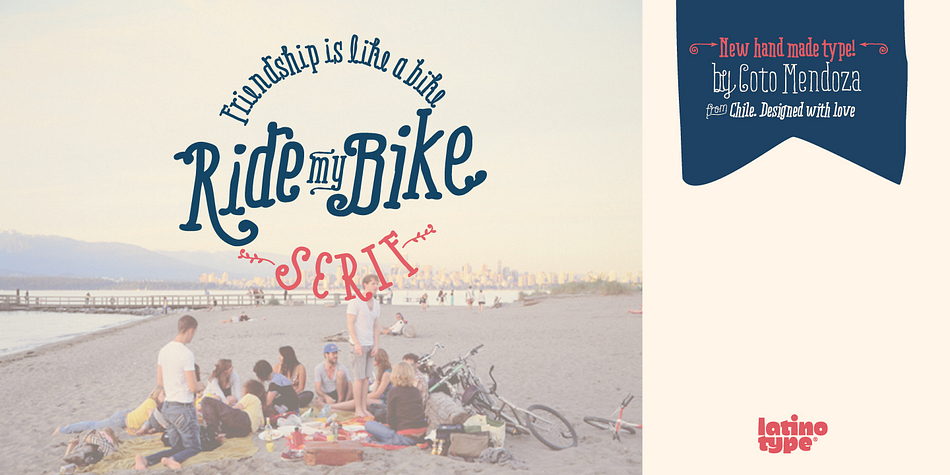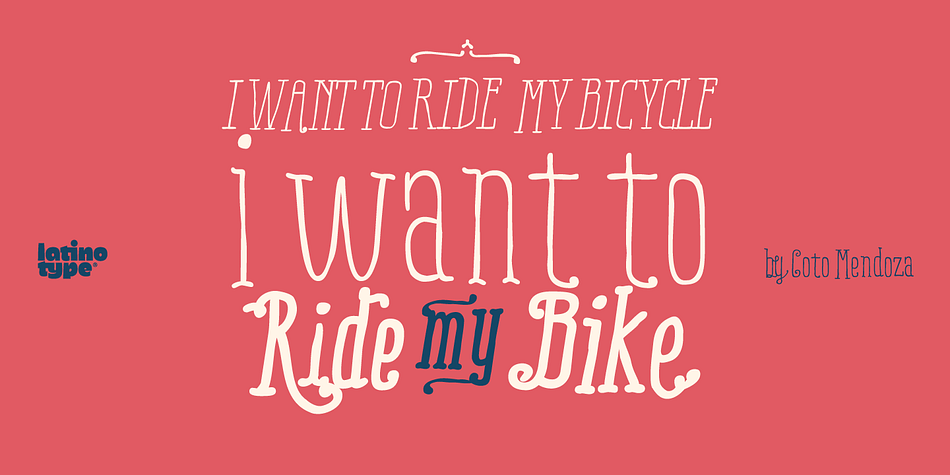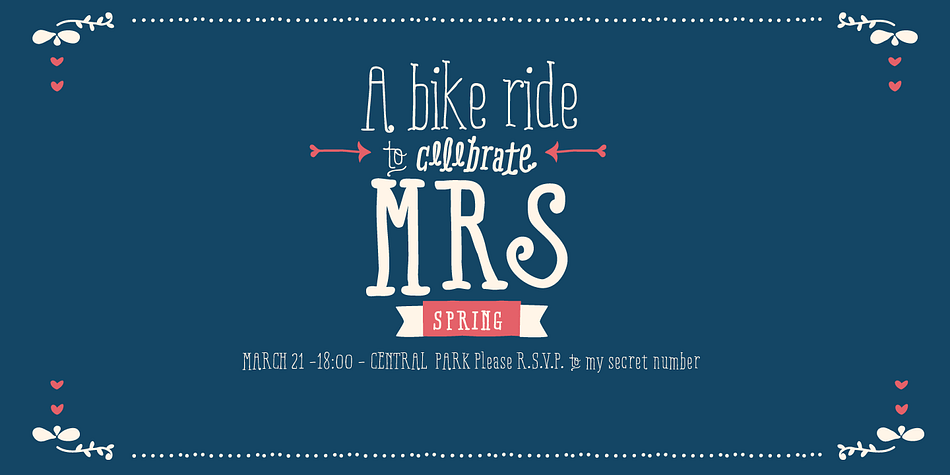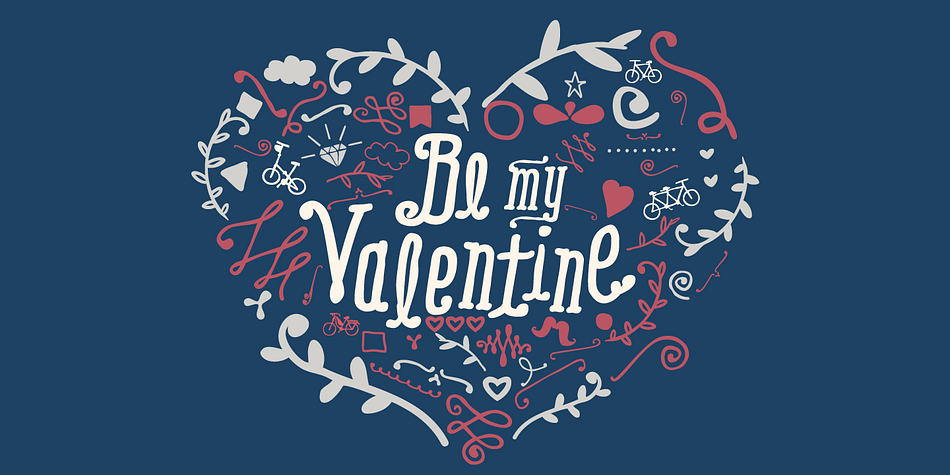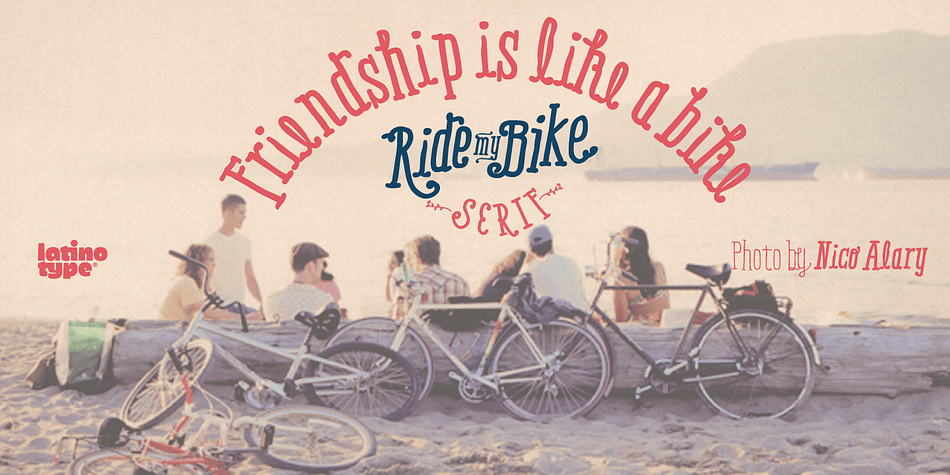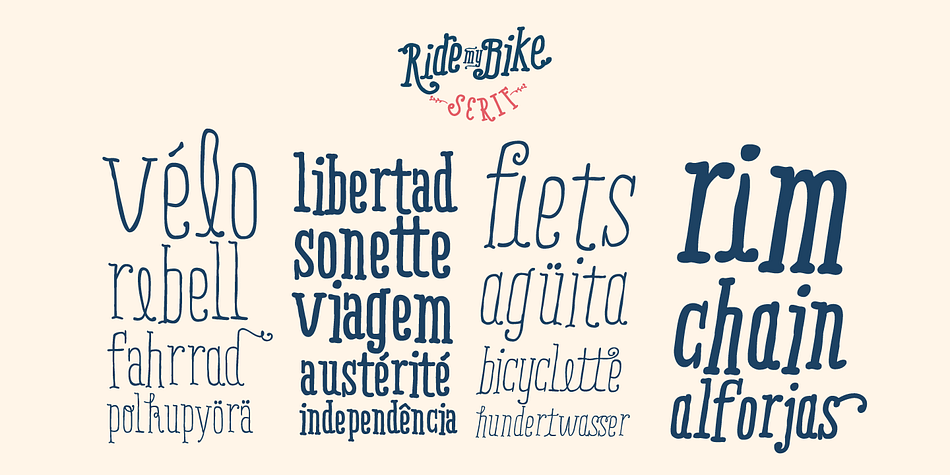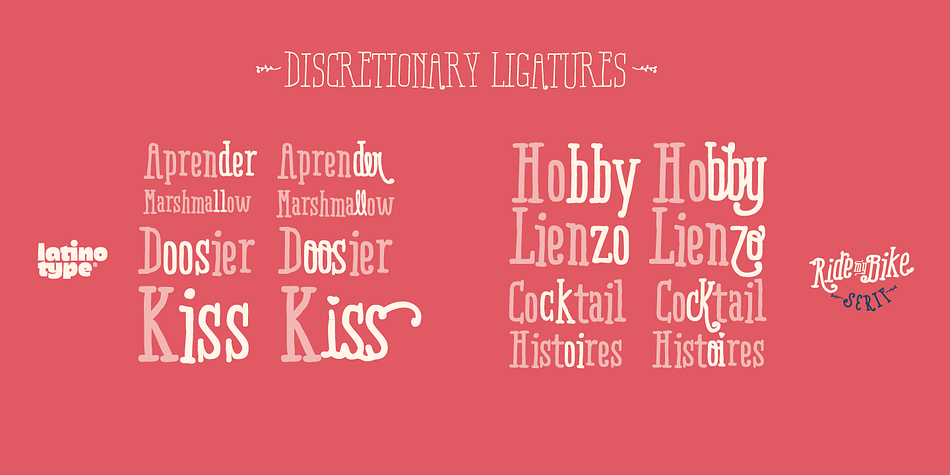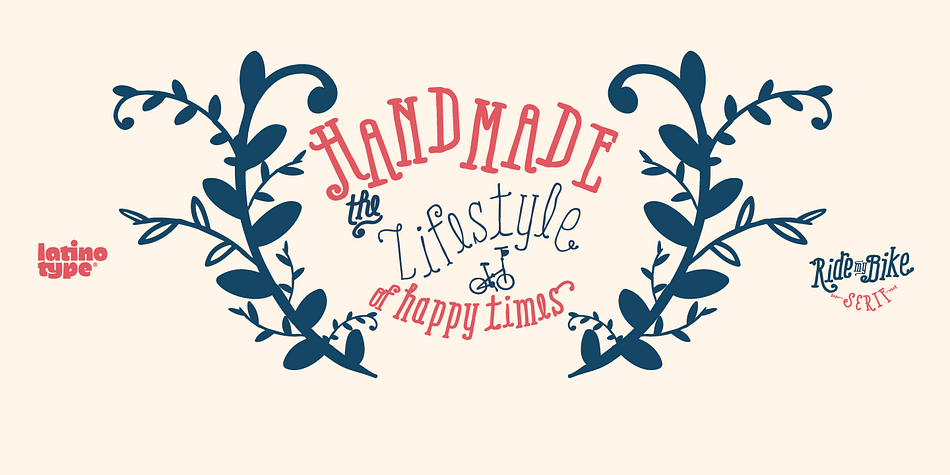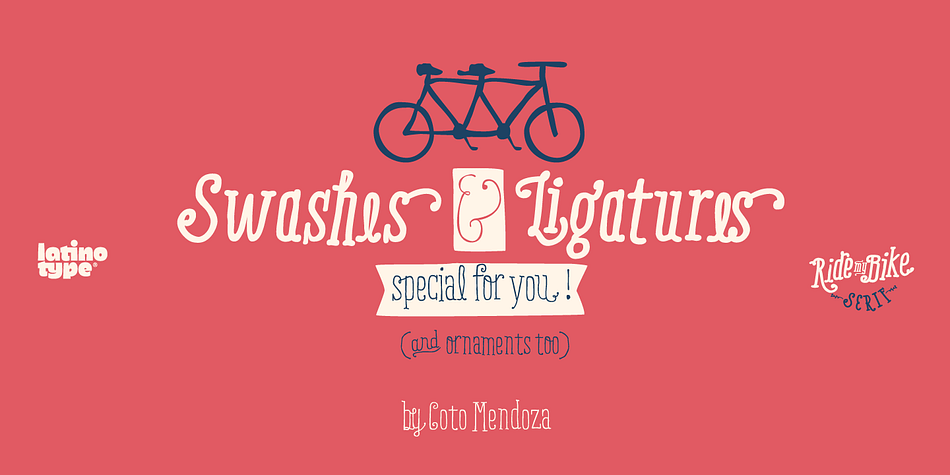
Ride my Bike Serif is a dingbat and hand drawn font family. This typeface has nine styles and was published by Latinotype.
Ride my bike Serif is a fresh handmade typeface inspired by street style and the new culture that moves pedaling around the city.
Perfect for use in headlines, brands and fashion photography compose alternative, thanks to its leading characters, terminals, alternate characters and ligatures that you can find in the Pro version. This version contains more than 600 glyphs.
The ‘Ornaments’ font in this family has 91 dingbats, very fun to compliment and accentuate the handmade design.